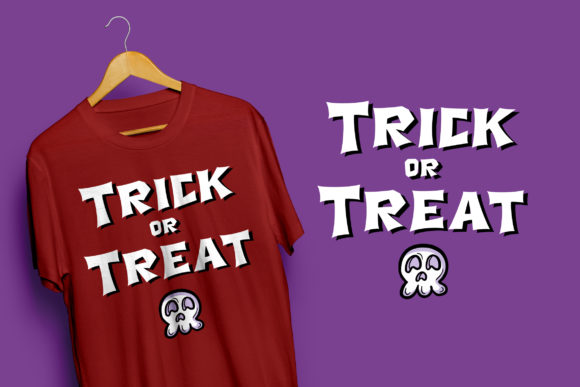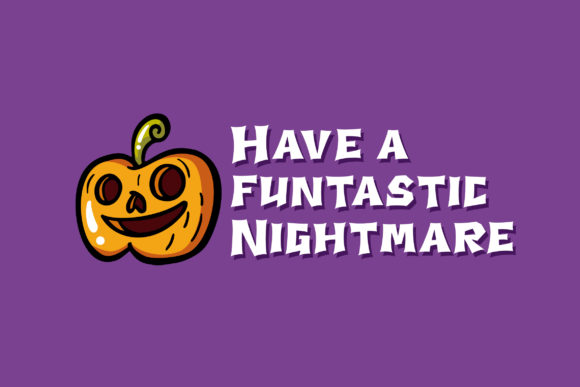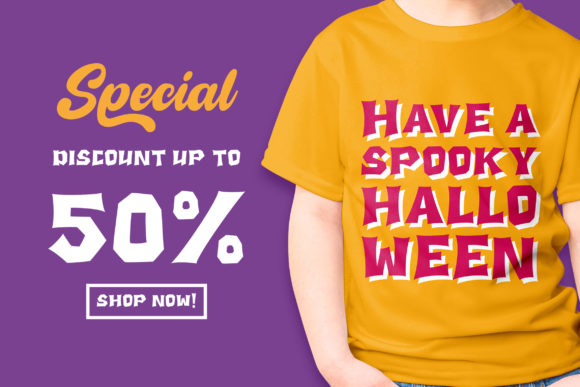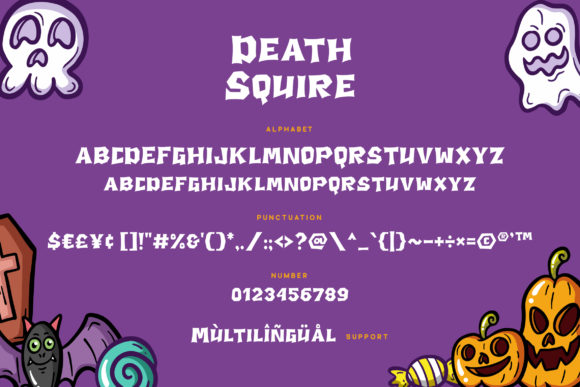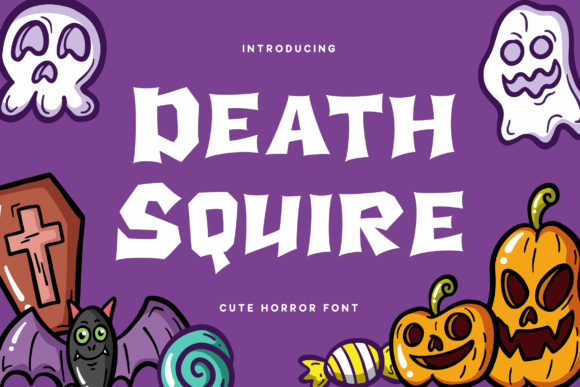
Unleash the Spook: Discover the Delightful Death Squire Font
As the witching hour approaches, designers and crafters are on the lookout for the perfect typography to add a touch of eerie elegance to their Halloween creations. Look no further than the Death Squire Font, a cute horror display font that’s sure to cast a spell on your audience. In this article, we’ll dive into the world of Death Squire, exploring its features, uses, and why it’s the perfect match for any Halloween design.
The Death Squire Font: A Cute Horror Display Font
Death Squire is a unique and captivating font that combines the essence of horror with a dash of cuteness. This display font is specifically designed to add a touch of spookiness to your designs, making it an ideal choice for Halloween-themed projects. With its bold and playful style, Death Squire is sure to grab attention and leave a lasting impression.
Key Features of Death Squire Font
- Unique and Quirky Design: Death Squire boasts a one-of-a-kind design that’s both eerie and adorable, making it perfect for Halloween designs.
- Bold and Playful Style: The font’s bold and playful style ensures it stands out in any design, adding a touch of whimsy and fun.
- High-Quality Vector Graphics: Death Squire is crafted with high-quality vector graphics, ensuring crisp and clean lines, even at large sizes.
- Easily Customizable: The font is easily customizable, allowing designers to adjust letter spacing, size, and color to fit their design needs.
Why Choose Death Squire for Your Halloween Designs?
With so many fonts available, why choose Death Squire for your Halloween designs? Here are a few compelling reasons:
- Instant Recognition: Death Squire’s unique design ensures instant recognition, making it perfect for titles, headings, and other display text.
- Versatility: The font’s versatility allows it to be used in a wide range of designs, from spooky invitations to creepy posters and flyers.
- Easy to Read: Despite its bold and playful style, Death Squire remains easy to read, even at smaller sizes.
Design Ideas Using Death Squire Font
Now that we’ve explored the features and benefits of Death Squire, let’s take a look at some design ideas to get you started:
- Halloween Invitations: Use Death Squire to create spooky and inviting Halloween invitations that set the tone for a howling good time.
- Creepy Posters and Flyers: Add a touch of eerie elegance to your posters and flyers with Death Squire’s bold and playful style.
- Social Media Graphics: Use Death Squire to create eye-catching social media graphics that are sure to grab attention and drive engagement.
Tips and Tricks for Using Death Squire Font
To get the most out of Death Squire, here are a few tips and tricks to keep in mind:
- Experiment with Colors: Death Squire looks great in a range of colors, from bold and bright to muted and pastel.
- Play with Letter Spacing: Adjusting letter spacing can add an extra touch of whimsy and fun to your designs.
- Combine with Other Fonts: Death Squire pairs well with a range of fonts, so don’t be afraid to experiment and find the perfect combination for your design.
In conclusion, Death Squire Font is a unique and captivating font that’s perfect for adding a touch of spookiness to your Halloween designs. With its bold and playful style, high-quality vector graphics, and ease of customization, Death Squire is sure to become a go-to font for designers and crafters. So why wait? Unleash the spook and get creative with Death Squire Font today!